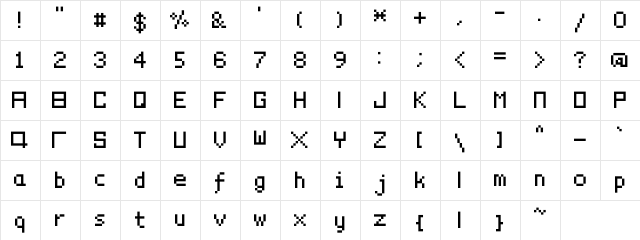
PixelYourLife Regular
Design Context for PixelYourLife Typeface
PixelYourLife is rooted in pixel-grid construction, making it a natural fit for game UI, retro computing aesthetics, and digital nostalgia projects.
A natural choice for retro game titles, chiptune music branding, 8-bit UI, and digital nostalgia projects.
Pro Tip: Pair PixelYourLife with flat colour palettes and simple geometric UI elements to reinforce its digital aesthetic.